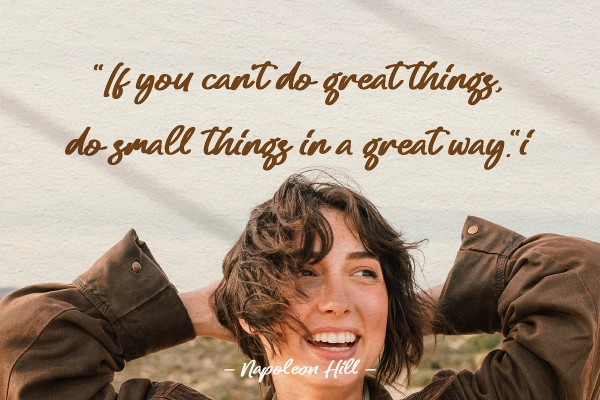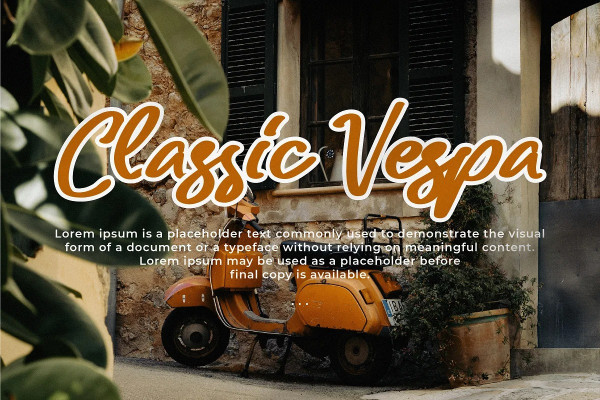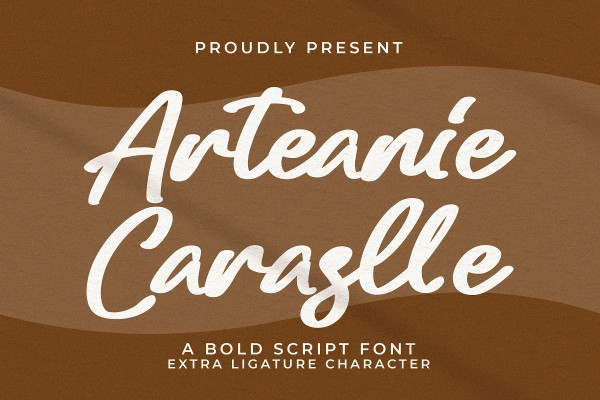
Arteanie Caraslle Font
Arteanie Caraslle Font – Bold Script Font, from Integritype Studio, is a premium Bold Script Font, perfect for any project like: logos, branding projects, homewares designs, product packaging, mugs, quotes, posters, shopping bags, t-shirts, covers books, business cards, invitation cards, greeting cards, labels, photography, watermarks, special events and all your other luxury projects that require a premium taste